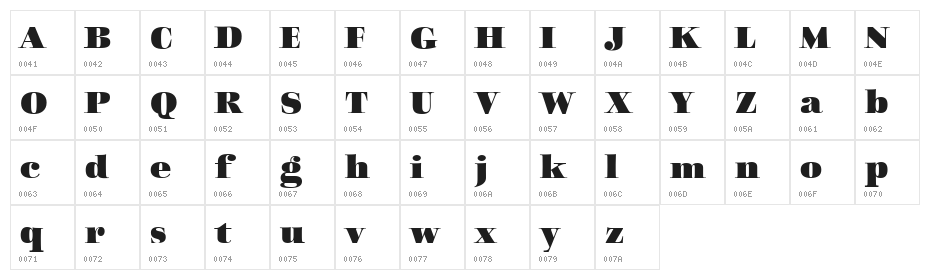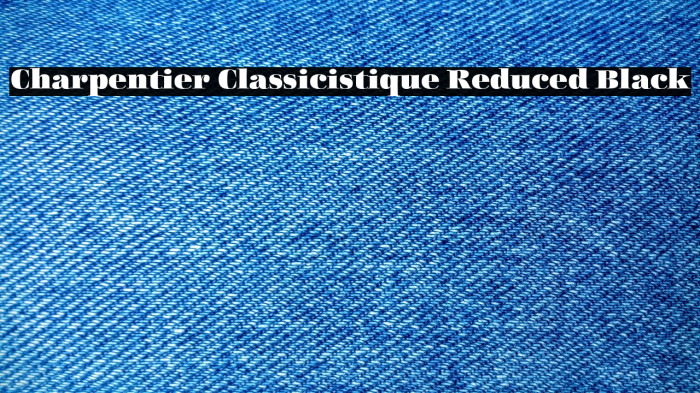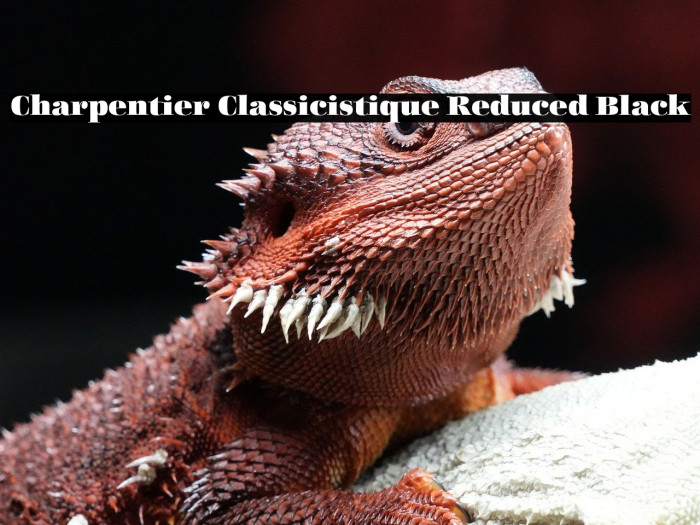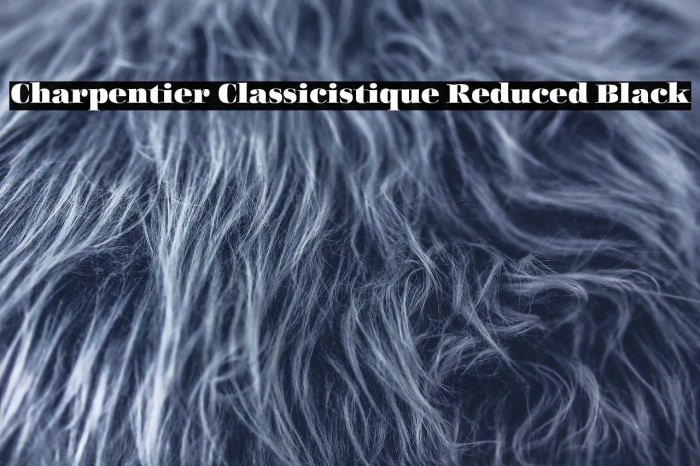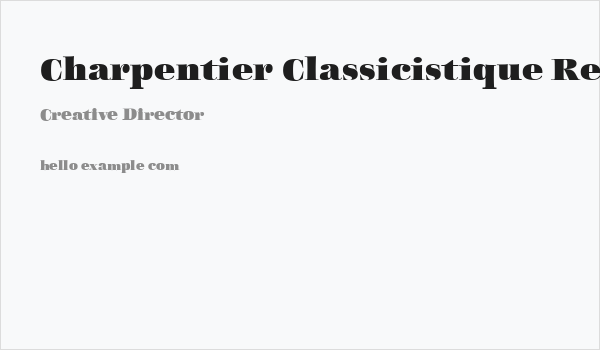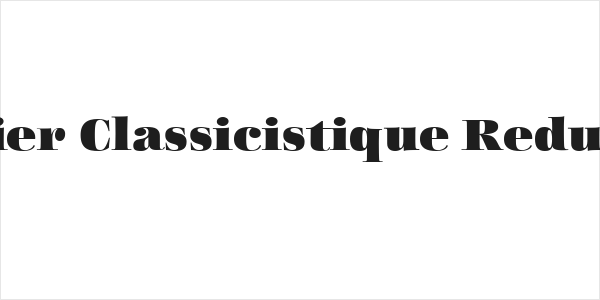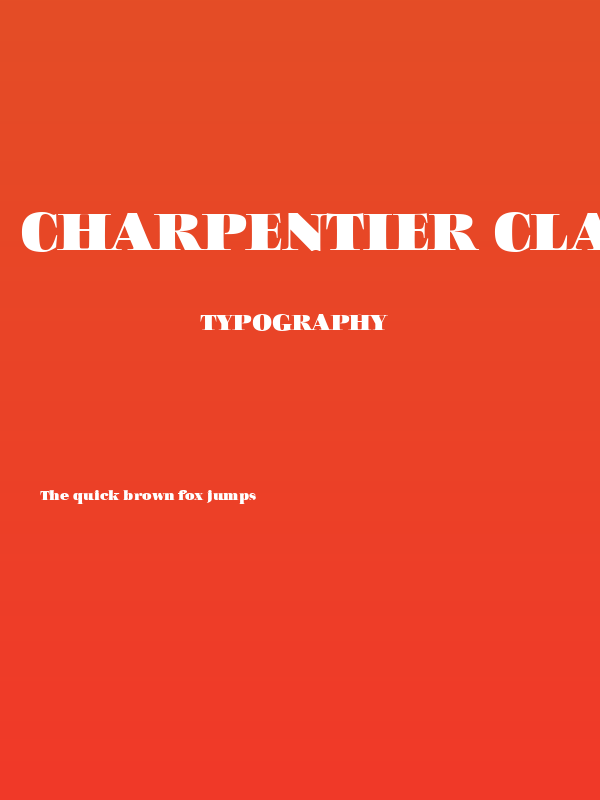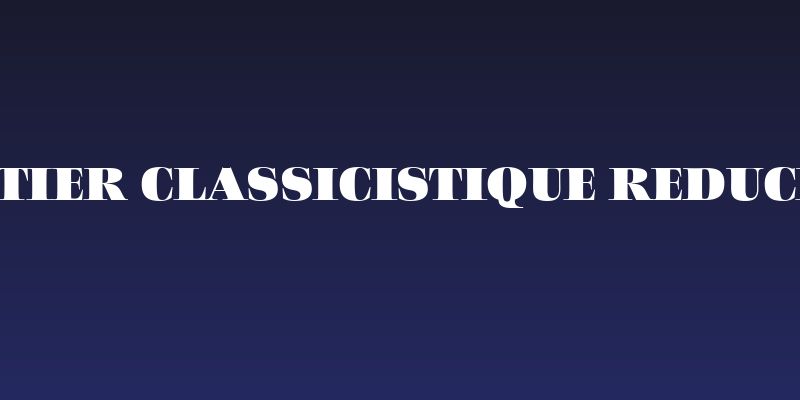
Charpentier Classicistique Reduced Black Font
Charpentier Classicistique Reduced Black Description
This font exhibits a bold and striking presence with its thick, heavy strokes and high contrast between thick and thin lines. The serifs are pronounced and sharp, adding a sense of elegance and authority. The uppercase letters are particularly commanding, with a strong vertical emphasis and slightly condensed proportions. The lowercase letters maintain the boldness, with rounded forms that balance the sharpness of the serifs. The numerals and special characters are consistent with the overall bold style, ensuring uniformity across all text. This font is ideal for making a strong visual impact.